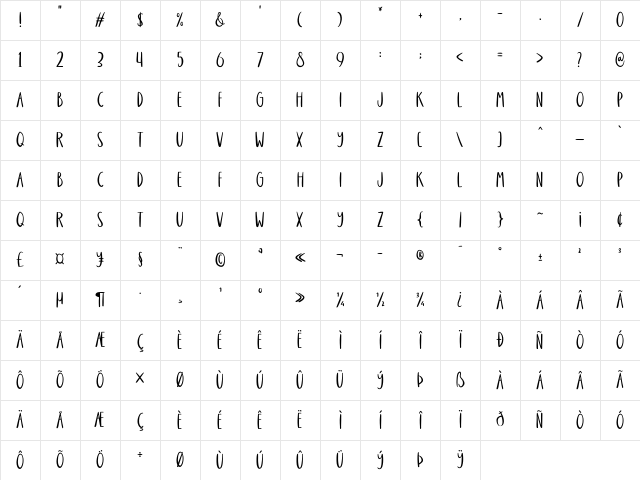
Complete Fabulous Spring Sans Regular glyph index. Displaying only characters natively supported by Fabulous Spring Sans Regular font.
Fabulous Spring Sans is a composed and adaptable typeface that performs quietly and consistently across a wide range of design contexts.
Pro Tip: Use Fabulous Spring Sans in both headline and body roles to test its range before committing to a single application.